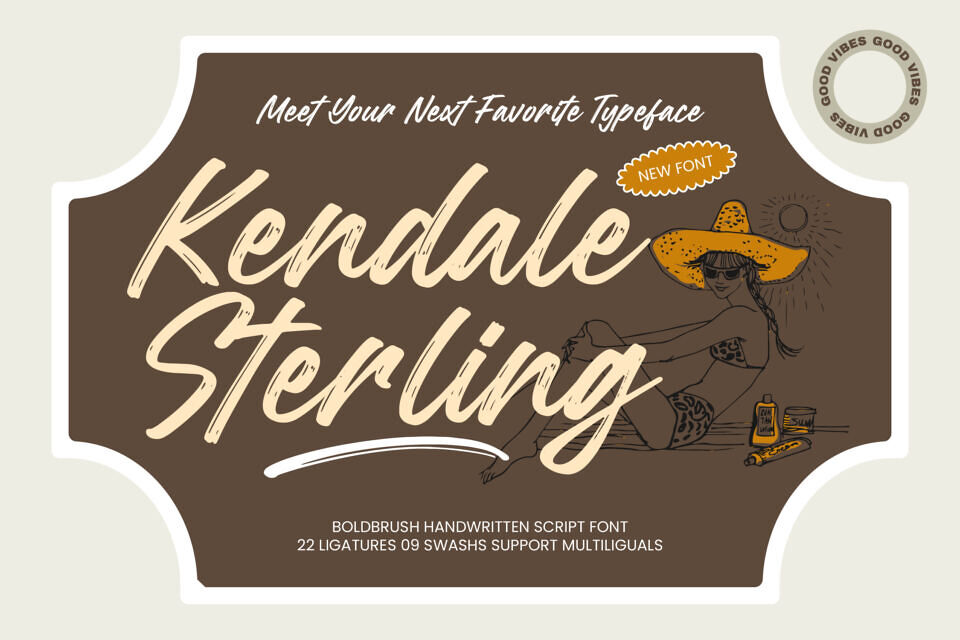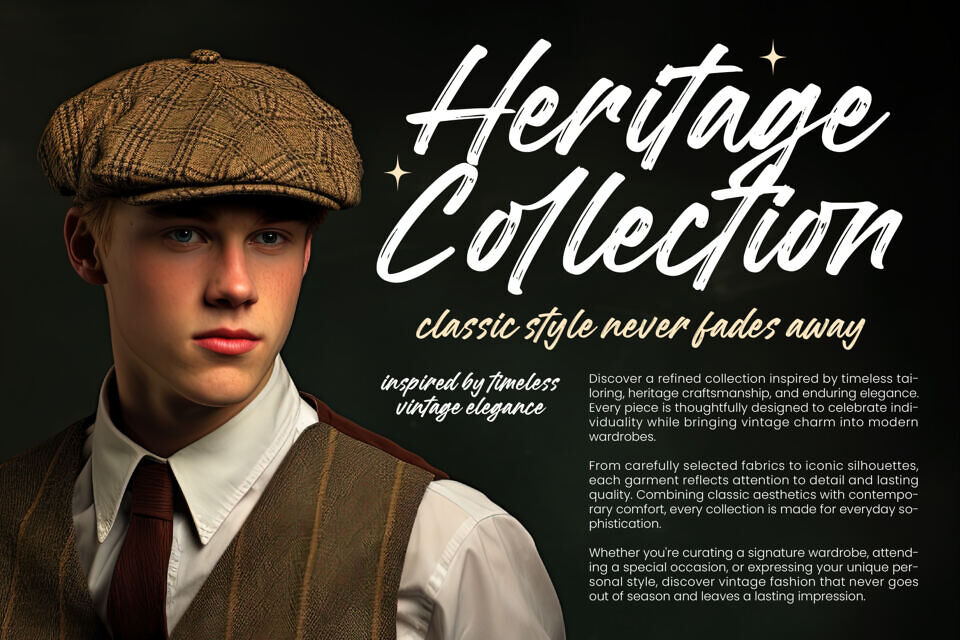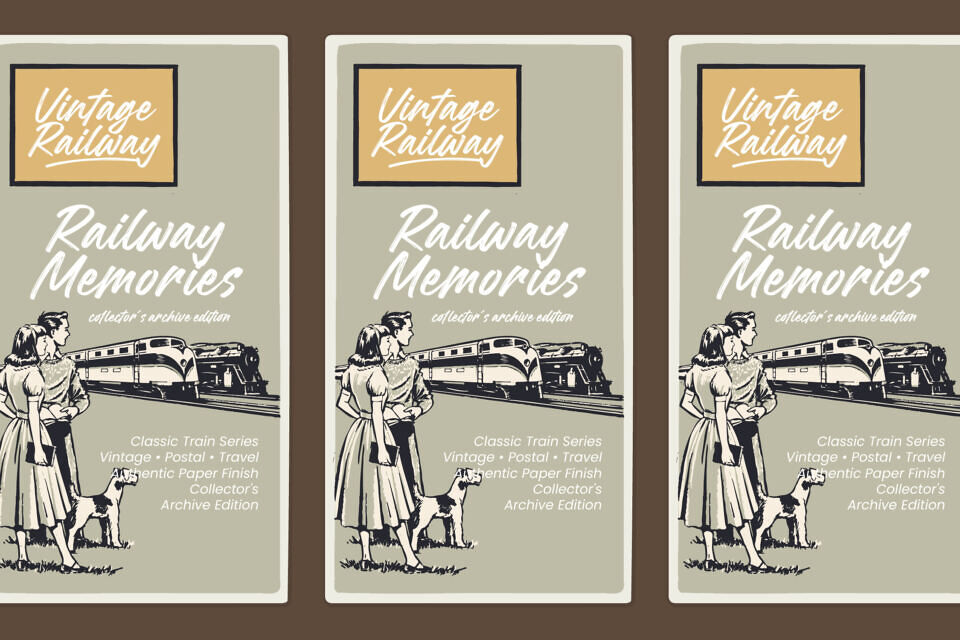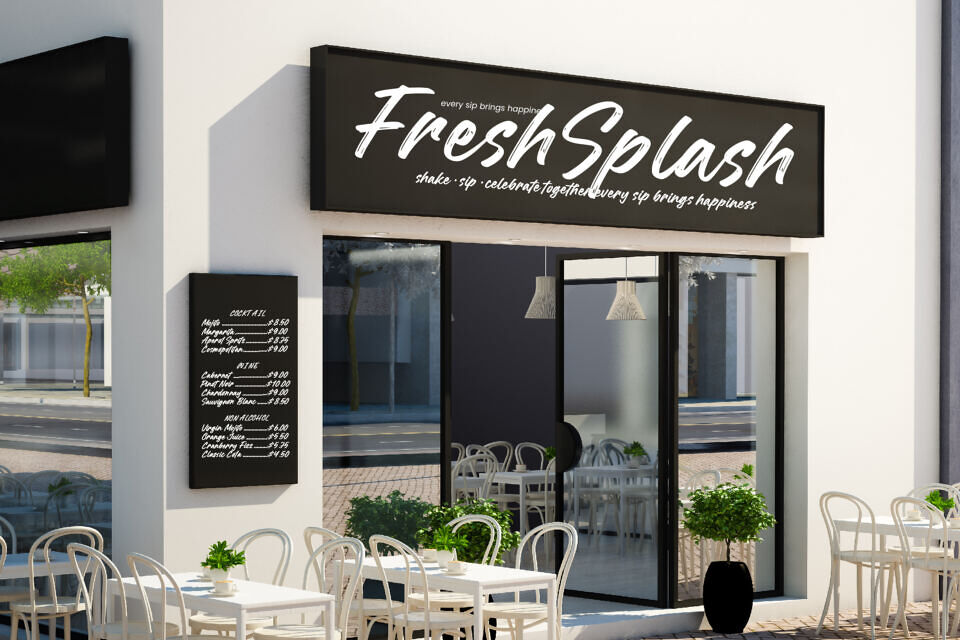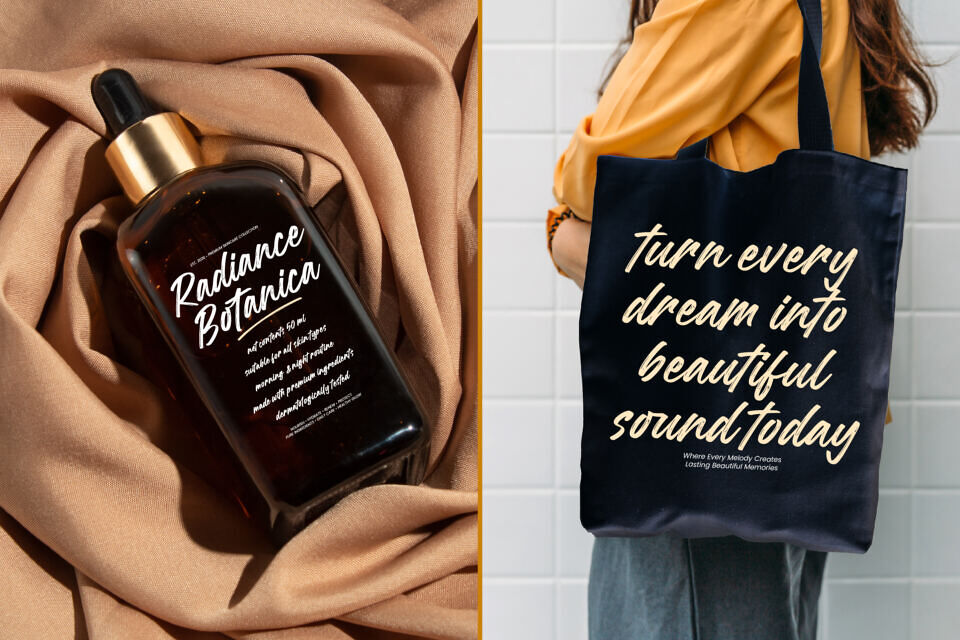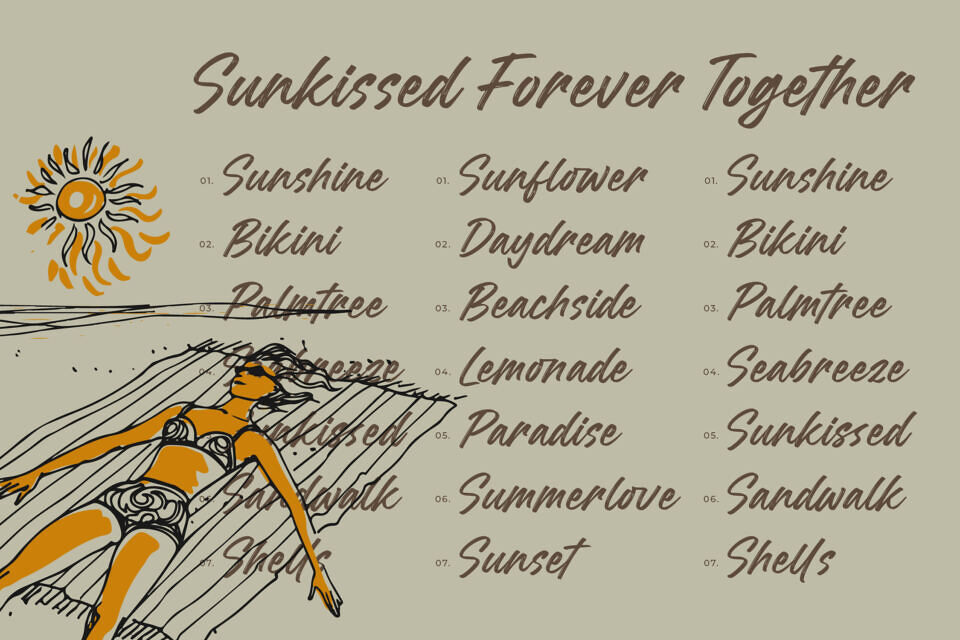
Kendale Sterling Font
Elevate your designs with Kendale Sterling, a handwritten font that combines street style with artistic flair. Its energetic strokes and handcrafted texture bring a sense of immediacy and personality.
Perfect for high-impact projects, this font is ideal for luxury branding, packaging, and photography. With multilingual support, it seamlessly adapts to global markets, ensuring consistent branding worldwide.